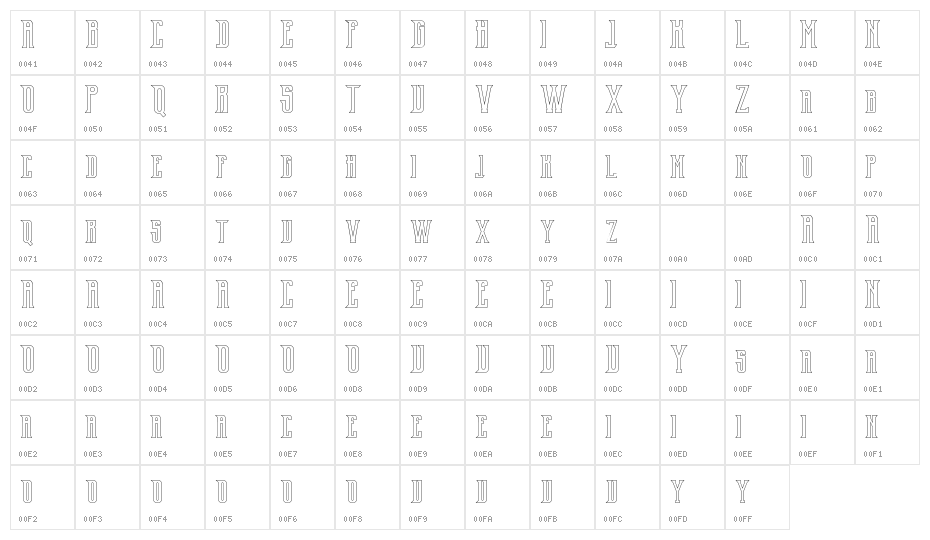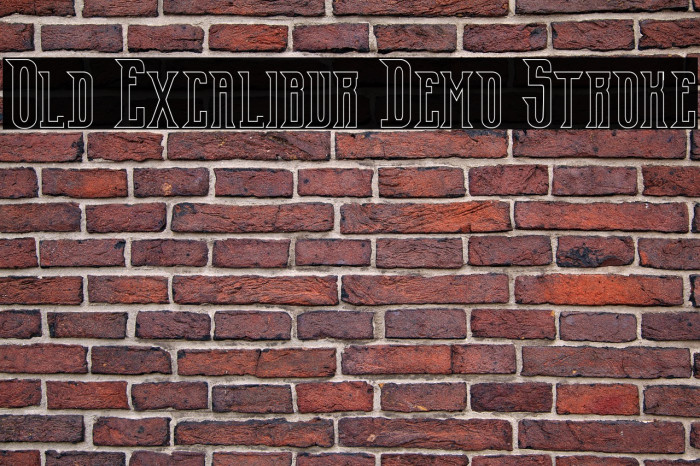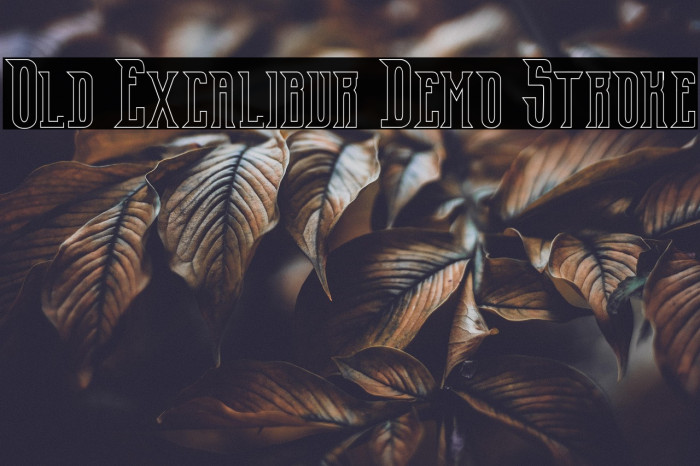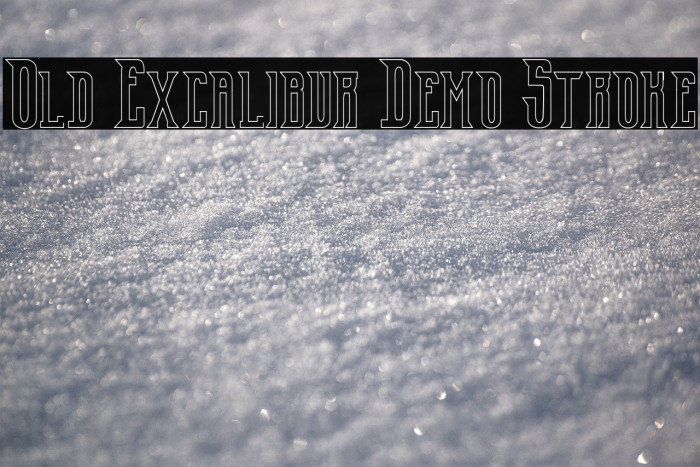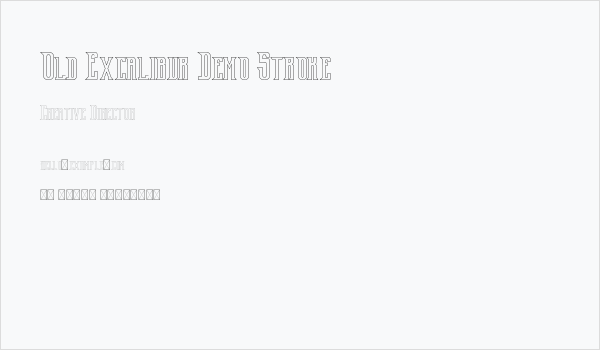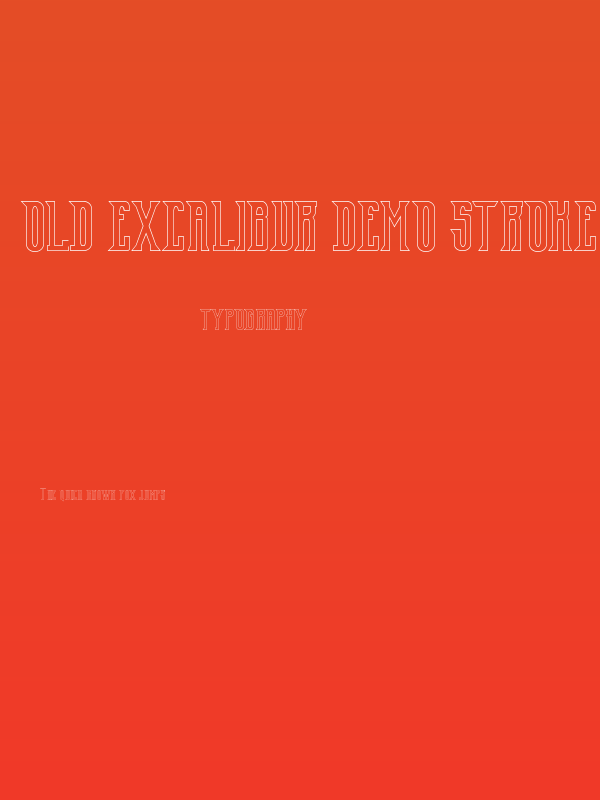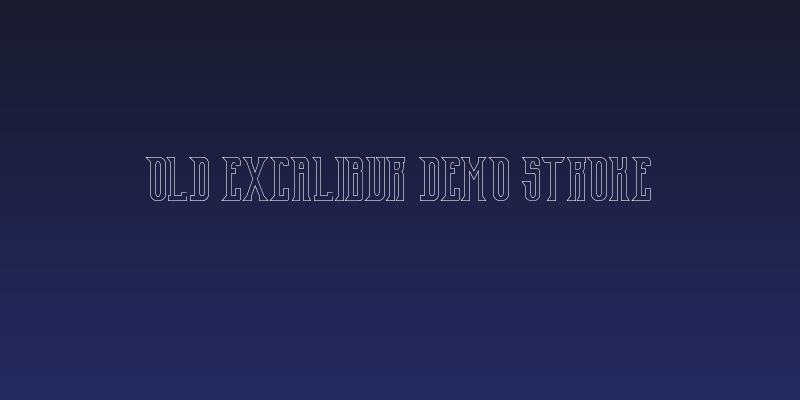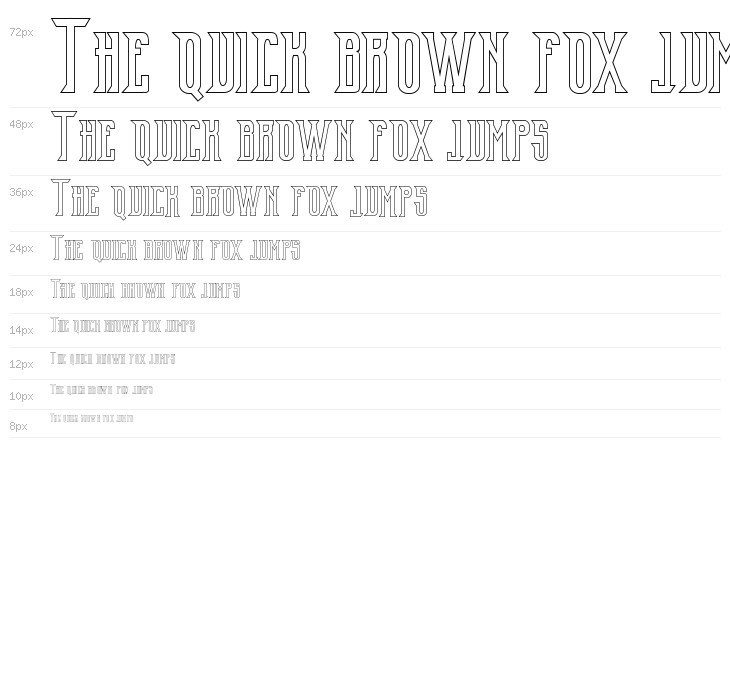
Old Excalibur Demo Stroke Font
Old Excalibur Demo Stroke Description
This font features a bold, decorative style with a medieval flair, characterized by its sharp, angular lines and intricate detailing. The uppercase letters are designed with a strong vertical emphasis, giving them a commanding presence. The strokes are consistent in width, creating a uniform appearance across all characters. The font's unique design elements, such as the pointed serifs and geometric shapes, evoke a sense of history and tradition, reminiscent of ancient scripts and heraldic symbols. Its distinct outline style adds an extra layer of visual interest, making it suitable for projects that require a touch of elegance and sophistication.